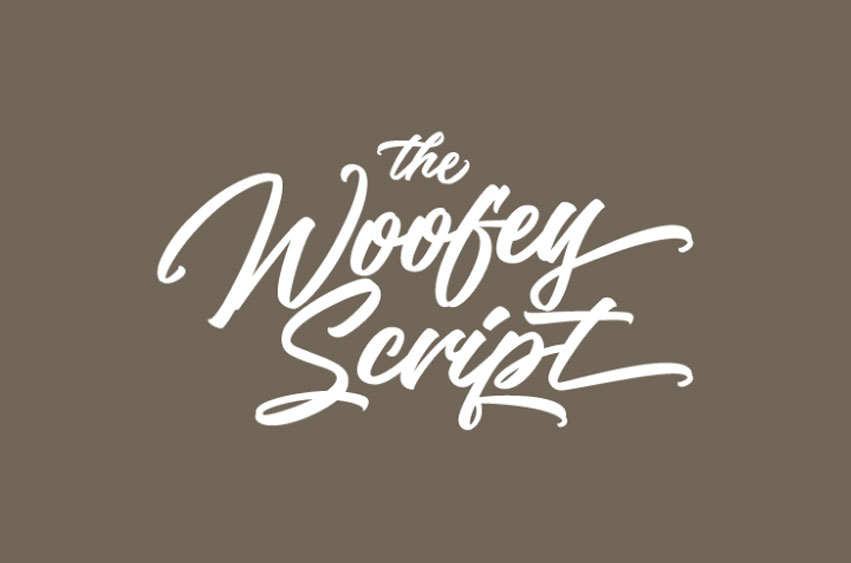
The Woofey Script Font is a professional Brush font created by Thirtypath and may be downloaded for free and used for personal purposes.
Free one offers all major characters in uppercase and lowercase and a few special ones.